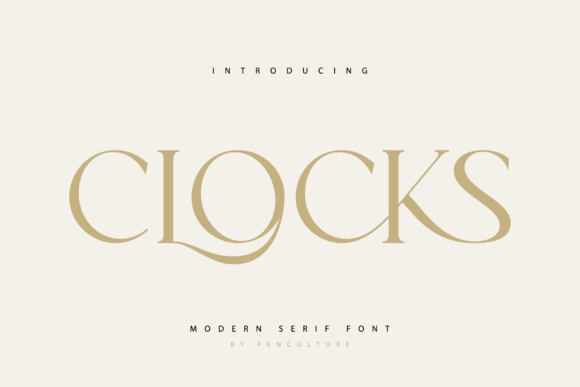
Introducing Clocks Font: Elevate Your Designs with Elegance and Sophistication
In the world of typography, a well-crafted font can make all the difference in transforming a design from ordinary to extraordinary. For designers and crafters seeking a modern and elegant serif font that exudes sophistication, look no further than Clocks Font. With its authentic shape, lovely ligatures, and versatility, Clocks Font is the perfect addition to your typography arsenal.
What Makes Clocks Font Stand Out?
Clocks Font is a modern serif font that boasts a unique blend of classic elegance and contemporary flair. Its authentic shape is reminiscent of traditional serif fonts, while its clean lines and subtle curves give it a fresh and modern feel. The font’s design is characterized by:
- Lovely Ligatures: Clocks Font features beautiful ligatures that add a touch of sophistication to any design. These ligatures seamlessly connect letters, creating a harmonious and flowing text that is a joy to read.
- Serif Elegance: The font’s serif design adds a level of refinement and elegance, making it perfect for projects that require a touch of luxury and sophistication.
- Modern Flair: Clocks Font’s modern design ensures that it remains fresh and relevant, even in today’s fast-paced design landscape.
Clocks Font’s versatility makes it an excellent choice for a wide range of design projects, including:
- Branding: Establish a strong brand identity with Clocks Font’s elegant and sophisticated design.
- Logo Design: Create a lasting impression with a custom logo that incorporates Clocks Font’s unique character.
- Fashion Design: Add a touch of luxury and glamour to your fashion designs with Clocks Font’s refined serif design.
- Packaging Design: Elevate your packaging designs with Clocks Font’s modern and elegant aesthetic.
- Advertising: Grab attention and convey your message with Clocks Font’s clean and sophisticated design.
Why Choose Clocks Font?
With so many fonts available, why choose Clocks Font? Here are just a few reasons why designers and crafters are falling in love with this modern serif font:
- Unique Design: Clocks Font’s authentic shape and lovely ligatures set it apart from other serif fonts.
- Versatility: This font is suitable for a wide range of design projects, from branding and logo design to fashion and packaging design.
- Elegance and Sophistication: Clocks Font exudes elegance and sophistication, making it perfect for projects that require a touch of luxury.
Get Creative with Clocks Font
Ready to elevate your designs with Clocks Font? Here are some tips to get you started:
- Experiment with Ligatures: Take advantage of Clocks Font’s lovely ligatures to add a touch of sophistication to your designs.
- Play with Font Sizes: Clocks Font’s clean design ensures that it remains legible at various font sizes, making it perfect for headlines and body text.
- Pair it with Other Fonts: Combine Clocks Font with other fonts to create a unique and visually appealing typography scheme.
In conclusion, Clocks Font is a modern and elegant serif font that is perfect for designers and crafters seeking to add a touch of sophistication to their designs. With its authentic shape, lovely ligatures, and versatility, Clocks Font is sure to become a staple in your typography collection.